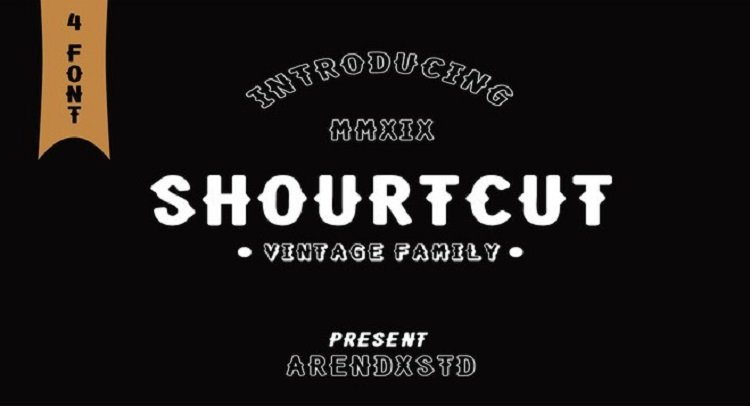
Shourtcut Display Font
Shourtcut Display Font is a font designed for the needs of all your retro-themed projects and can be implemented to all the designs you want to make.